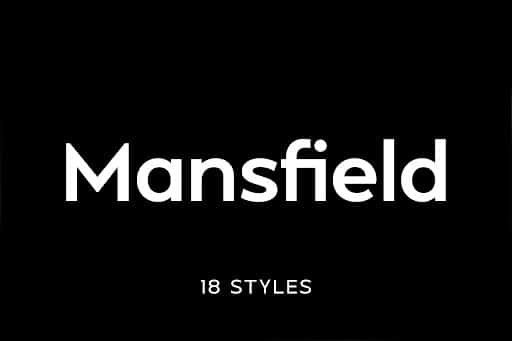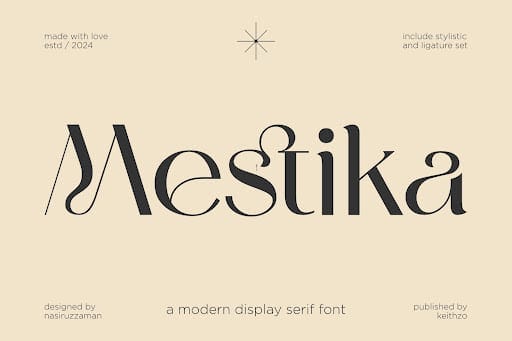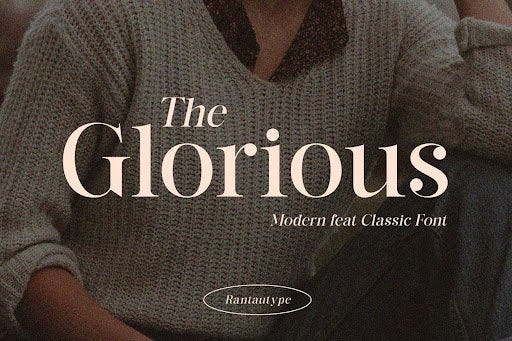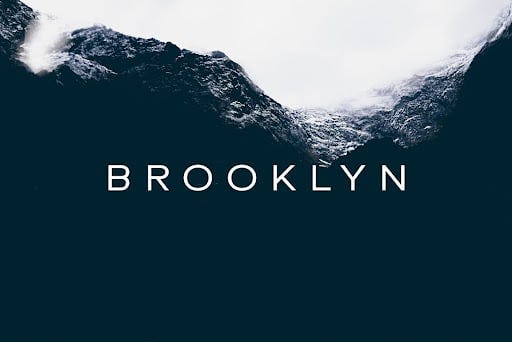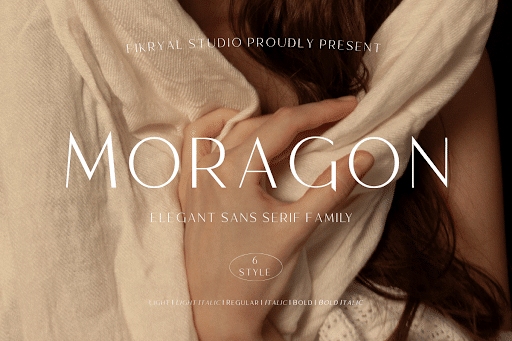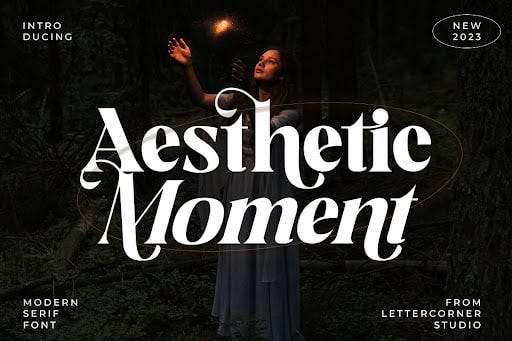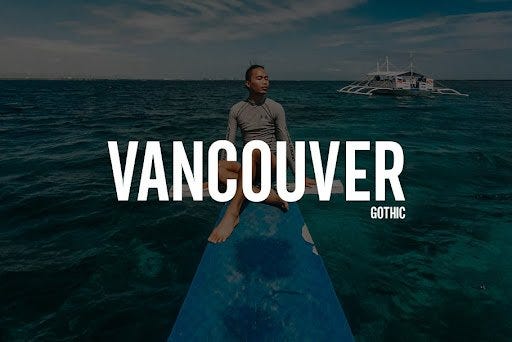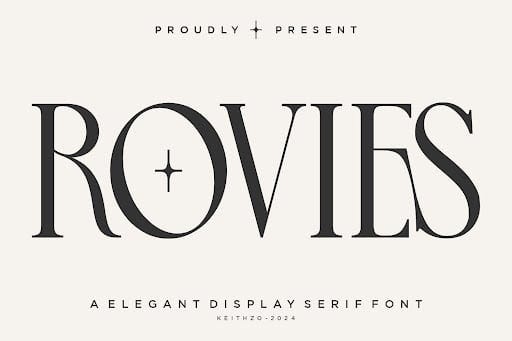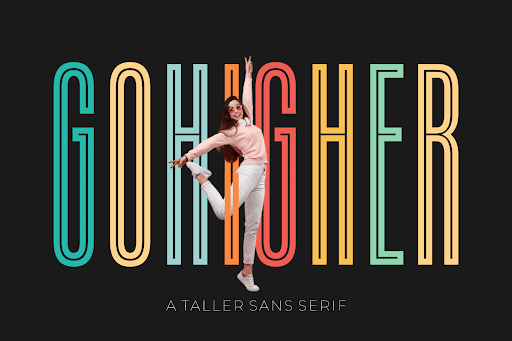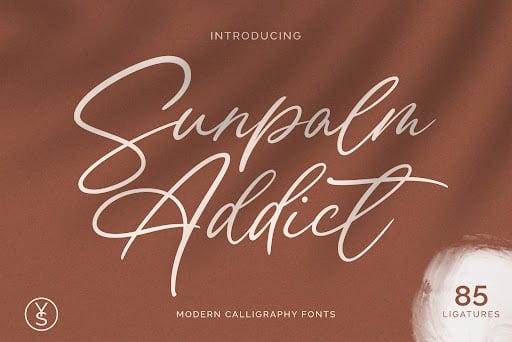
21 Aesthetic Fonts Trending in 2025
al element in design, setting the tone and mood for any project. As we venture into 2025, let's explore some of the most captivating and trendy fonts that are making waves in the design world.
Overthinker Font by Keithzo (7NTypes)
The Overthinker Font offers a unique blend of modern and retro aesthetics, making it versatile for various design applications. Its clean lines and distinct character make it a top choice for 2025.
Kingstone Sans Font by Unitype
Kingstone Sans is a bold, sans-serif font that exudes confidence and clarity. Perfect for headlines and attention-grabbing text, this font is a must-have for contemporary designs.
Oulza Font by Marvadesign
Oulza Font combines elegance with a touch of playfulness. Its stylish curves and dynamic strokes make it ideal for creative projects and branding.
Spring Honeymoon Font by salamahtype
Spring Honeymoon Font captures the essence of romance and whimsy. Its flowing script style adds a touch of elegance to invitations, greeting cards, and more.
Moragon Font by Fikryal Studio
Moragon Font is a versatile serif font that offers both traditional and contemporary vibes. Its sophisticated design makes it perfect for high-end branding and editorial work.
Sunpalm Addict Font by YdhraStudio
Sunpalm Addict Font brings a tropical and relaxed feel to any design. Its casual yet stylish appearance makes it perfect for summer-themed projects.
Montreal Font by Unitype
Montreal Font is a sleek and modern sans-serif font that adds a touch of professionalism to any design. Its clean lines and balanced proportions make it highly readable.
Melbourne Font by Unitype
Melbourne Font combines classic elegance with a contemporary twist. Its sophisticated design makes it suitable for luxury branding and editorial use.
Anthasic Font by YdhraStudio
Anthasic Font offers a bold and impactful design, making it perfect for headlines and attention-grabbing text. Its unique character sets it apart from the crowd.
Brightons Font by Unitype
Brightons Font is a clean and modern sans-serif font that works well for both print and digital designs. Its versatility makes it a great addition to any designer's toolkit.
Mansfield Font by Unitype
Mansfield Font exudes elegance and sophistication. Its refined design makes it perfect for high-end branding and editorial work.
Gohigher Font by Situjuh
Gohigher Font is a playful and dynamic font that adds a fun touch to any design. Its unique character and lively appearance make it ideal for creative projects.
Vancouver Font by Webhance
Vancouver Font offers a modern and clean design that is perfect for contemporary projects. Its sleek lines and balanced proportions make it highly readable and versatile.
Brooklyn Font by designova
Brooklyn Font is a bold and impactful font that commands attention. Its strong presence makes it ideal for headlines and branding projects.
Aesthetic Moment Font by Lettercorner Studio
Aesthetic Moment Font captures the essence of modern elegance. Its stylish and refined design makes it perfect for high-end branding and editorial use.
Mestika Font by Keithzo (7NTypes)
Mestika Font offers a blend of modern and traditional elements, making it versatile for various design applications. Its clean lines and distinct character make it a top choice for 2025.
Rovies Font by Keithzo (7NTypes)
Rovies Font combines elegance with a touch of playfulness. Its stylish curves and dynamic strokes make it ideal for creative projects and branding.
Humble Nostalgia Font by Arterfak Project
Humble Nostalgia Font captures the essence of romance and whimsy. Its flowing script style adds a touch of elegance to invitations, greeting cards, and more.
Sirkel Font by Marvadesign
Sirkel Font is a versatile serif font that offers both traditional and contemporary vibes. Its sophisticated design makes it perfect for high-end branding and editorial work.
Verve Font by Webhance
Verve Font brings a tropical and relaxed feel to any design. Its casual yet stylish appearance makes it perfect for summer-themed projects.
The Glorious Font by RantauType
The Glorious Font is a sleek and modern sans-serif font that adds a touch of professionalism to any design. Its clean lines and balanced proportions make it highly readable.